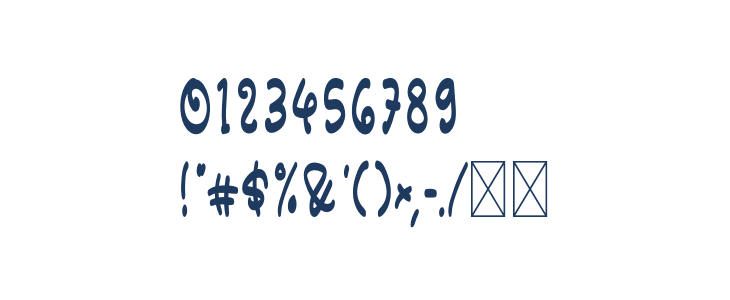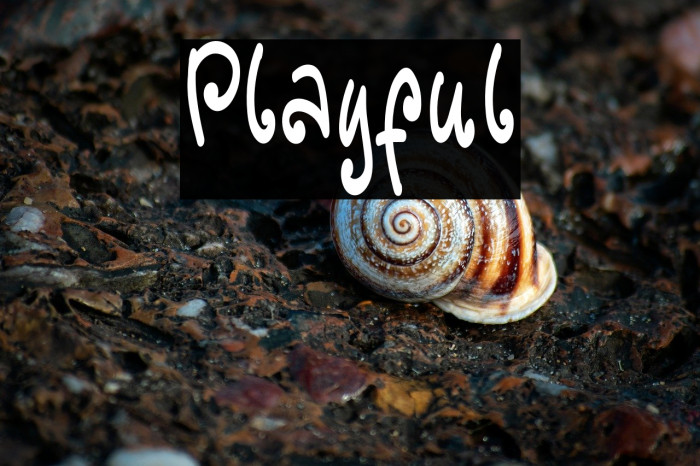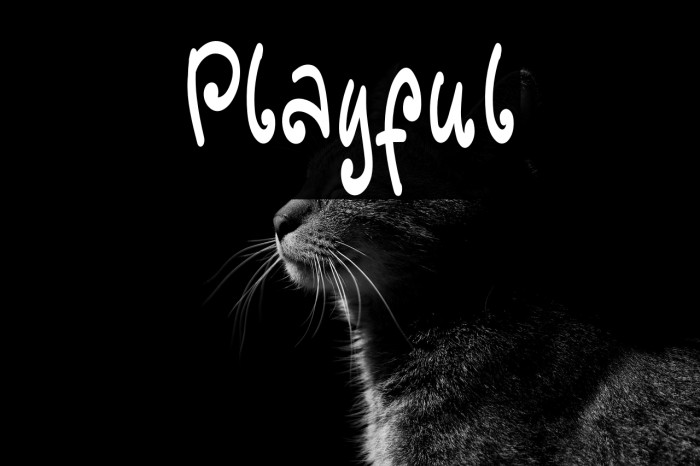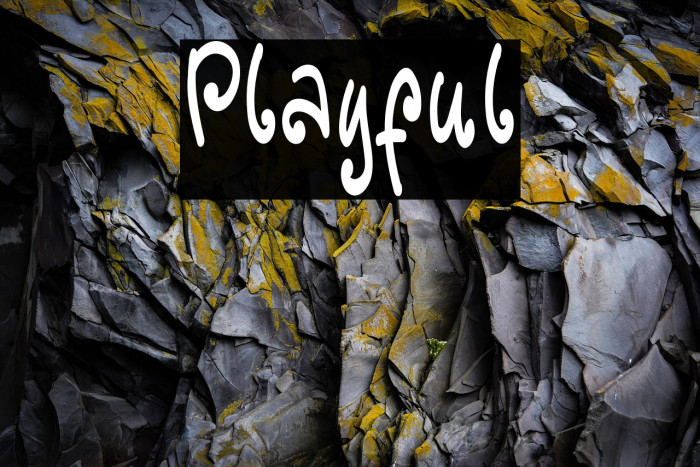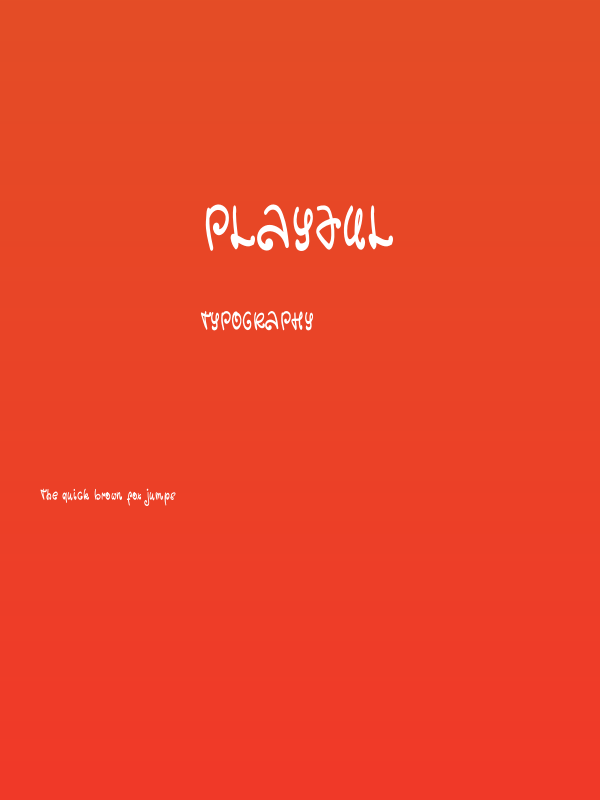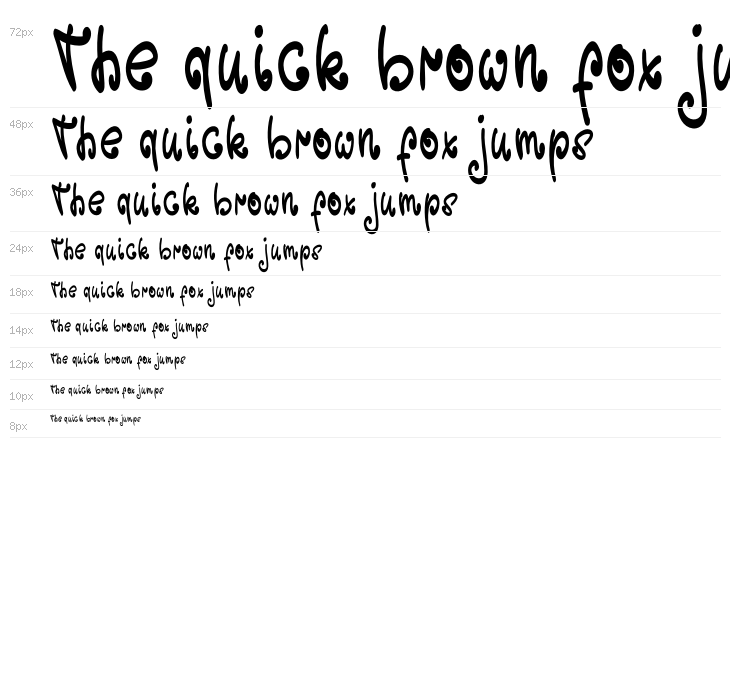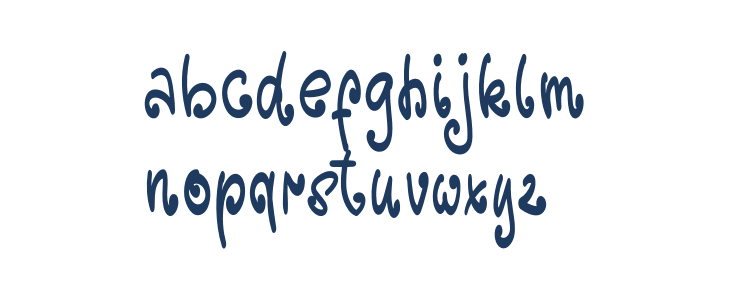
Playful Font
Playful Description
This font exudes a playful and whimsical charm, characterized by its bold, rounded strokes and quirky, uneven letterforms. The letters have a hand-drawn quality, with each character exhibiting unique curves and loops that add to its lively personality. The uppercase and lowercase letters maintain a consistent style, while the numerals and special characters integrate seamlessly, enhancing the font's cohesive look. Its boldness ensures readability, while the irregularities in shape and form give it a dynamic, energetic feel. This font is perfect for projects that require a fun and informal touch.